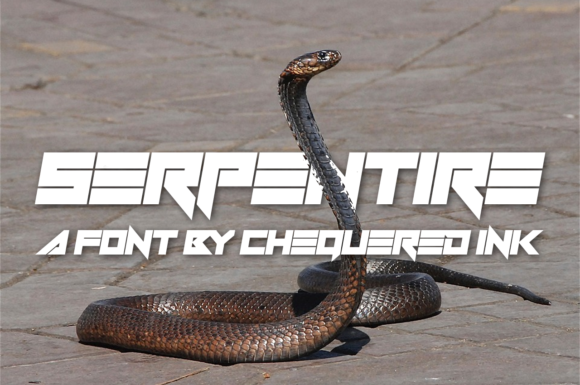
Welcome, typographers, designers, and lovers of digital art! Brace yourselves for an encounter with a font that will ignite your creativity and leave an indelible mark on your designs. Allow us to introduce you to Serpentire, the brainchild of the ingenious minds at Chequered Ink. This stunning display font is not for the faint-hearted; it's bold, it's sharp, and it's ready to take your designs to the next level.
Serpentire is a font that commands attention. Its sharp edges and angular forms exude a sense of power and confidence, making it the perfect choice for headlines, logos, and any other design element that demands to be noticed. But don't let its bold demeanor fool you; Serpentire also possesses an undeniable elegance, with subtle curves and graceful lines that add a touch of sophistication to its overall aesthetic.
Crafted with meticulous precision, Serpentire's letterforms are a work of art, designed to enhance the impact of your words. Whether you're creating a poster for a rock concert, a futuristic website, or a cutting-edge magazine spread, Serpentire will elevate your designs, making them stand out from the crowd.
But Serpentire is more than just a pretty face; it's also incredibly versatile. Its unique character makes it suitable for a wide range of design projects, from edgy street art to sleek corporate presentations. Whether you're a seasoned designer or just starting out, Serpentire will quickly become your go-to font for adding a touch of personality and style to your work.